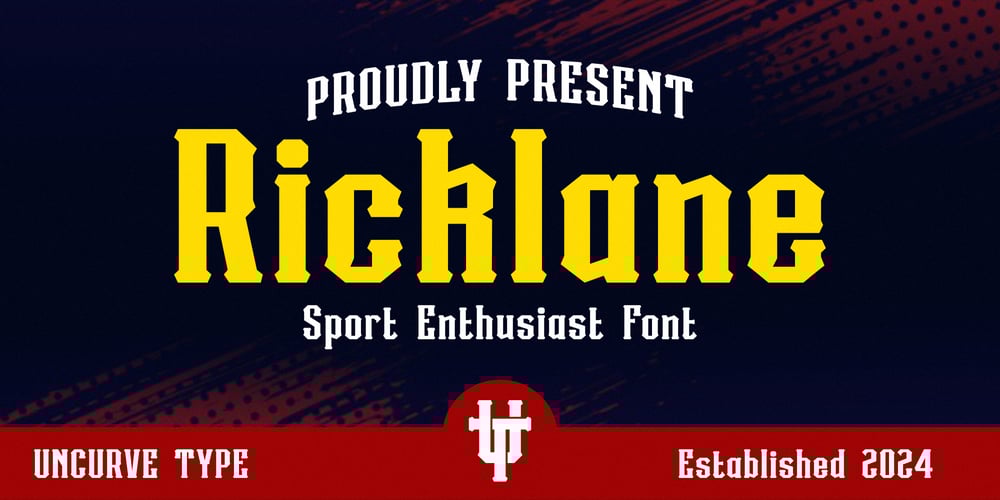
Ricklane Font Family was designed by Ferry Septian and published by Uncurve. Ricklane contains 1 styles and family package options. Introducing “Ricklane,” a bold and dynamic sporty font designed to capture the energy and thrill of adrenaline-pumping sports. Ricklane is the perfect choice for any design that demands a strong, action-packed look, inspired by the bravery and intensity of competitive sports.Ideal for authentic logos, sports designs, flyers, posters, branding, magazines, book and album covers, movie posters, and apparel designs. Ricklane seamlessly fits into titles, brochures, labels, product packaging, sports events, jerseys, and even automotive designs. Whether you’re creating a modern t-shirt design, formal branding, or bold event signage, Ricklane brings a powerful, energetic vibe to your project, making it stand out with confidence and style.In summary, Ricklane is the go-to font for designers seeking a sporty, adrenaline-fueled aesthetic. Perfect for both modern and formal designs, Ricklane adds energy and action to any creative endeavor.